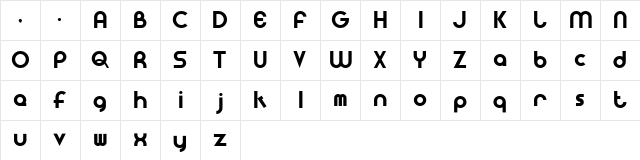
Gatha Sans Regular
Design Context for Gatha Sans Typeface
Gatha Sans offers clean, dependable letterforms without strong stylistic allegiance, making it a practical choice for designers who need flexibility.